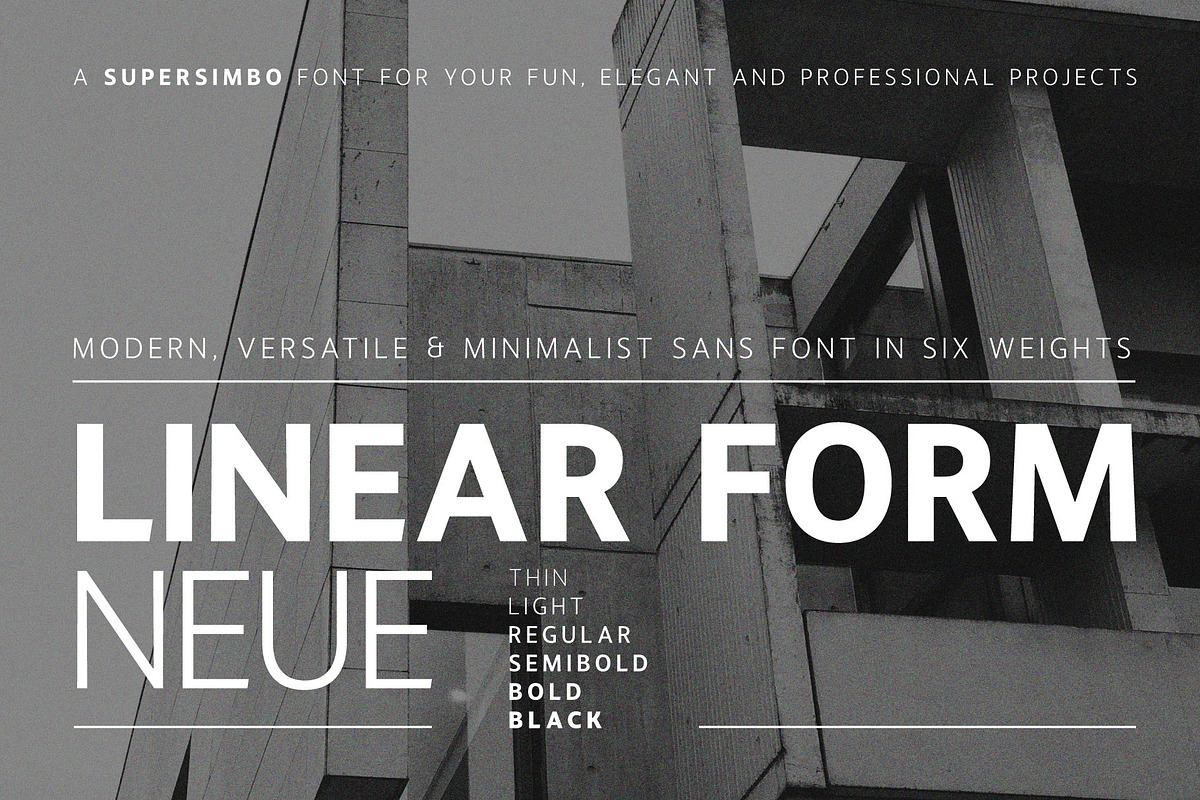
Linear Form Neue Font Free Download is a sleek and contemporary sans-serif typeface designed with precision and elegance. With its clean lines, balanced proportions, and modern look, this font is perfect for branding, digital design, editorial layouts, and user interfaces.
Its simplicity and clarity make it a versatile choice for both print and web design projects, providing a polished and professional appearance. Whether you’re creating a minimalist logo, a website layout, or a sophisticated poster, Linear Form Neue delivers both style and readability. Linear Form Neue Font Free Download lets you explore its modern design in personal projects before purchasing a commercial license.
Achieve a sleek, modern aesthetic with Linear Form Neue — the sans-serif font that brings clarity, sophistication, and impact to any project.